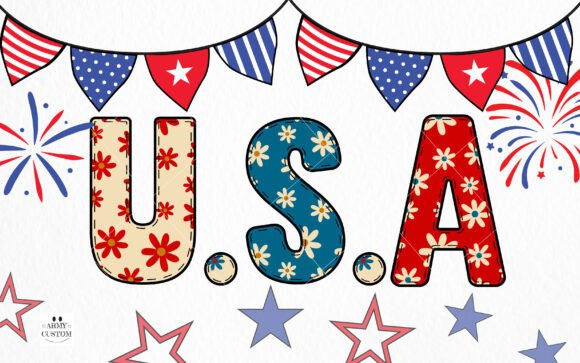
Daisy Flower Retro Bundle Font: A Whimsical Expression of Love and Nature
The “Daisy Flower Retro Bundle Font” is a delightful and charming font that embodies love and sentimentality in every curve and corner. This beautiful font is perfect for expressing endearing messages and adding a touch of nature’s elegance to your voice. In this article, we’ll explore the features and benefits of the “Daisy Flower Retro Bundle Font” and how it can be used to create stunning designs and projects.
The Charm of Daisies in Typography
Daisies have long been a symbol of innocence, purity, and love. The “Daisy Flower Retro Font” brings this charm to typography, infusing every letter with the simplicity and elegance of daisies. This whimsical font is perfect for creating designs that are playful, yet sentimental. Whether you’re looking to create romantic messages, children’s party invitations, or simply add a touch of whimsy to your designs, the “Daisy Flower Retro Font” is an excellent choice.
Key Features of the Daisy Flower Retro Font
• Whimsical and Delightful: The “Daisy Flower Retro Font” is a doodle font that brings a touch of playfulness and joy to your designs.
• Sentimental Expressions: This font is perfect for expressing love, appreciation, and endearing messages.
• Nature’s Elegance: The font’s design incorporates the simplicity and elegance of daisies, adding a touch of nature to your voice.
Using the Daisy Flower Retro Font in Your Designs
The “Daisy Flower Retro Font” can be used in a variety of design projects, from romantic messages to children’s party invitations. Here are some ideas to get you started:
Design Ideas for the Daisy Flower Retro Font
• Romantic Messages: Use the “Daisy Flower Retro Font” to create beautiful and sentimental messages for loved ones.
• Children’s Party Invitations: Add a touch of whimsy and playfulness to your children’s party invitations with this delightful font.
• Greeting Cards: Create stunning greeting cards for special occasions, such as birthdays, anniversaries, and weddings.
• Social Media Graphics: Use the “Daisy Flower Retro Font” to create eye-catching social media graphics that are sure to grab attention.
Tips and Tricks for Using the Daisy Flower Retro Font
Here are some tips and tricks to help you get the most out of the “Daisy Flower Retro Font”:
Tips and Tricks
• Experiment with Colors: Try out different color combinations to add a unique touch to your designs.
• Play with Typography: Experiment with different font sizes, styles, and arrangements to create visually appealing designs.
• Add Graphics and Illustrations: Combine the “Daisy Flower Retro Font” with graphics and illustrations to create stunning designs.
The “Daisy Flower Retro Bundle Font” is a beautiful and charming font that can add a touch of love, nature, and whimsy to your designs. With its sentimental expressions, delightful doodle style, and compatibility with various design programs, this font is perfect for a wide range of design projects. Whether you’re a designer, crafty DIY enthusiast, or simply someone who loves typography, the “Daisy Flower Retro Font” is an excellent choice.